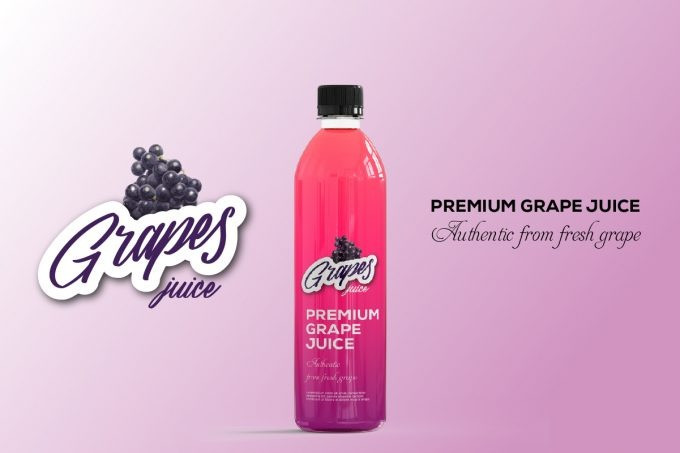
Neguhetty Calligraphy Font
The Neguhetty is an amazing script typeface with a sublime appearance. It’s elegant, versatile and perfect for adding an upscale and chic look to your designs. Ini dapat digunakan untuk berbagai keperluan seperti judul, tanda tangan, logo, desain kaos, kop surat, signage, label, buletin, poster, lencana, dan setiap desain lainnya yang membutuhkan font yang unik dan mencolok.